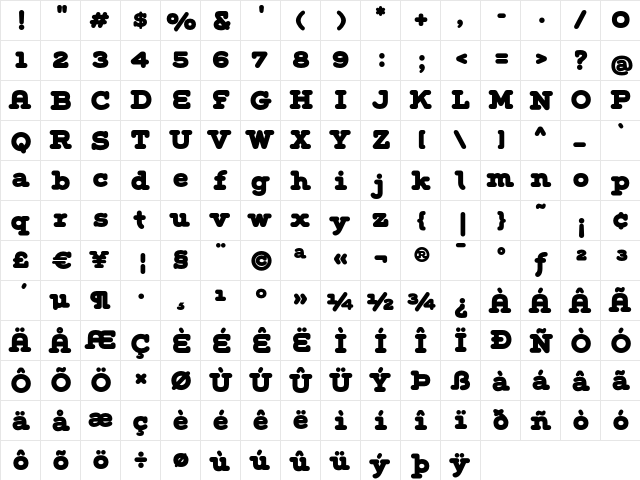
Grover Slab Heavy Regular
Design Context for Grover Slab Heavy Typeface
Grover Slab Heavy combines the readability of serif typography with the visual weight of a slab construction, resulting in a typeface that feels both authoritative and approachable.
Works well in editorial design, news publishing, impactful branding, and poster typography.
Pro Tip: Try Grover Slab Heavy set tight in headlines for a classic editorial feel. Its slab serifs create strong horizontal rhythm that anchors a page layout.